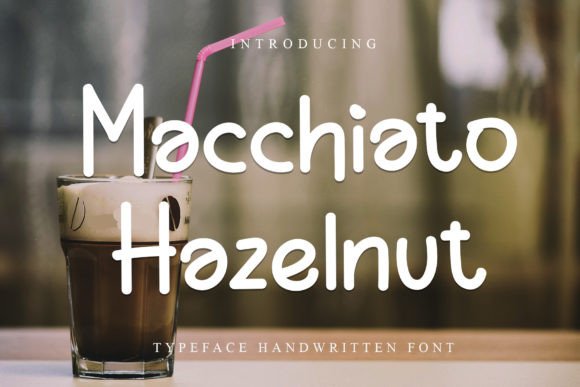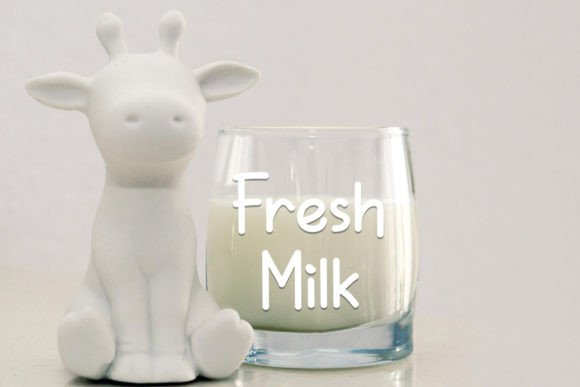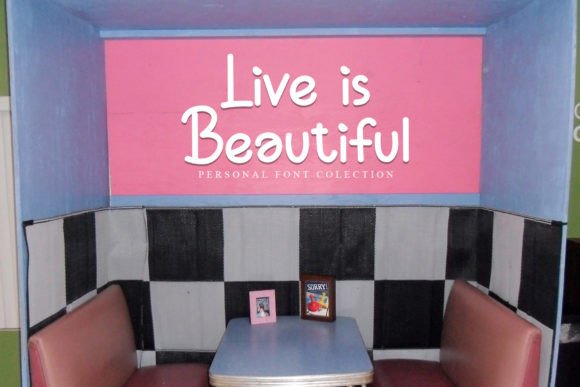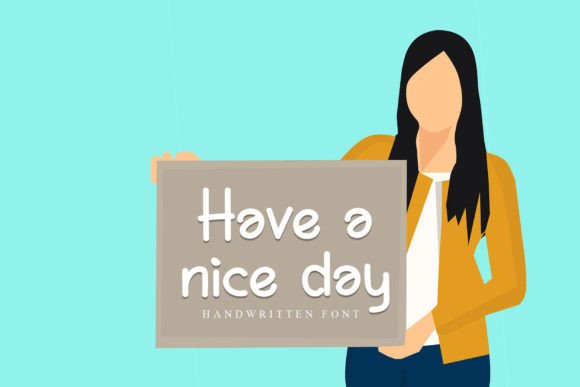
Macchiato Hazelnut feels equally charming and elegant. It looks stunning on wedding invitations, thank you cards, quotes, greeting cards, logos, business cards, and every other design which needs a handwritten touch.